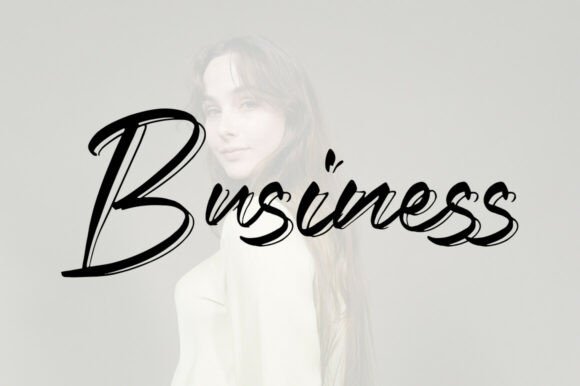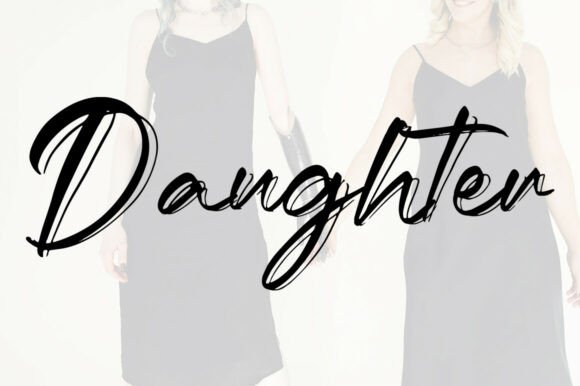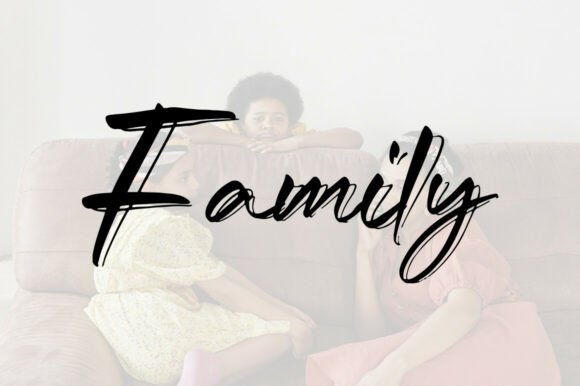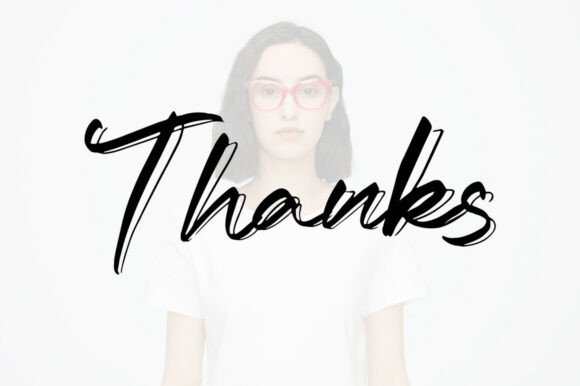
Introducing Apricot Font: Elevate Your Designs with Timeless Elegance
Are you on the hunt for a stylish handwritten font that exudes a contemporary atmosphere and impeccable form? Look no further than Apricot Font, a beautiful and versatile typeface inspired by timeless classic calligraphy. In this article, we’ll dive into the world of Apricot Font, exploring its features, benefits, and uses, and why it’s a must-have for designers and crafters alike.
The Inspiration Behind Apricot Font
Apricot Font is a masterful blend of traditional calligraphy and modern design. Its creator drew inspiration from the elegance and sophistication of classic calligraphy, infusing it with a contemporary twist to create a truly unique and stylish font. The result is a typeface that is both balanced and varied, making it perfect for a wide range of design projects.
Key Features of Apricot Font
So, what sets Apricot Font apart from other fonts? Here are some of its key features:
- PUA Encoding: Apricot Font is PUA (Private Use Area) encoded, which means you can easily access all the glyphs and swashes. This makes it incredibly easy to use and customize, even for those without extensive design experience.
- Handwritten Style: Apricot Font boasts a beautiful, handwritten style that adds a touch of warmth and personality to any design.
- Contemporary Atmosphere: With its sleek lines and modern aesthetic, Apricot Font is perfect for designers looking to create contemporary and stylish designs.
- Impeccable Form: The font’s impeccable form ensures that it remains legible and visually appealing, even at smaller sizes.
- Balanced and Varied: Apricot Font is carefully crafted to be both balanced and varied, making it suitable for a wide range of design applications.
Benefits of Using Apricot Font
So, why should you choose Apricot Font for your next design project? Here are just a few benefits:
- Elegance and Sophistication: Apricot Font adds a touch of elegance and sophistication to any design, making it perfect for high-end branding, packaging, and marketing materials.
- Versatility: With its wide range of glyphs and swashes, Apricot Font can be used for a variety of design applications, from logos and headings to body text and more.
- Easy to Use: Apricot Font is incredibly easy to use, even for those without extensive design experience. Its PUA encoding makes it simple to access and customize.
- Time-Saving: With Apricot Font, you can save time and effort on design projects. Its versatility and range of glyphs mean you can create stunning designs quickly and easily.
Uses for Apricot Font
Apricot Font is an incredibly versatile typeface, suitable for a wide range of design applications. Here are just a few ideas to get you started:
- Branding and Logo Design: Apricot Font is perfect for creating elegant and sophisticated logos, perfect for high-end brands and businesses.
- Packaging Design: Add a touch of elegance to your packaging designs with Apricot Font, ideal for luxury brands and products.
- Marketing Materials: Use Apricot Font to create stunning marketing materials, including brochures, flyers, and more.
- Stationery and Invitations: Apricot Font is perfect for creating beautiful stationery, invitations, and greeting cards.
In conclusion, Apricot Font is a stylish and versatile handwritten font that is sure to elevate your designs. With its impeccable form, contemporary atmosphere, and PUA encoding, it’s the perfect choice for designers and crafters looking to add a touch of elegance and sophistication to their work. Whether you’re creating branding materials, packaging, or marketing collateral, Apricot Font is a must-have in your design arsenal.